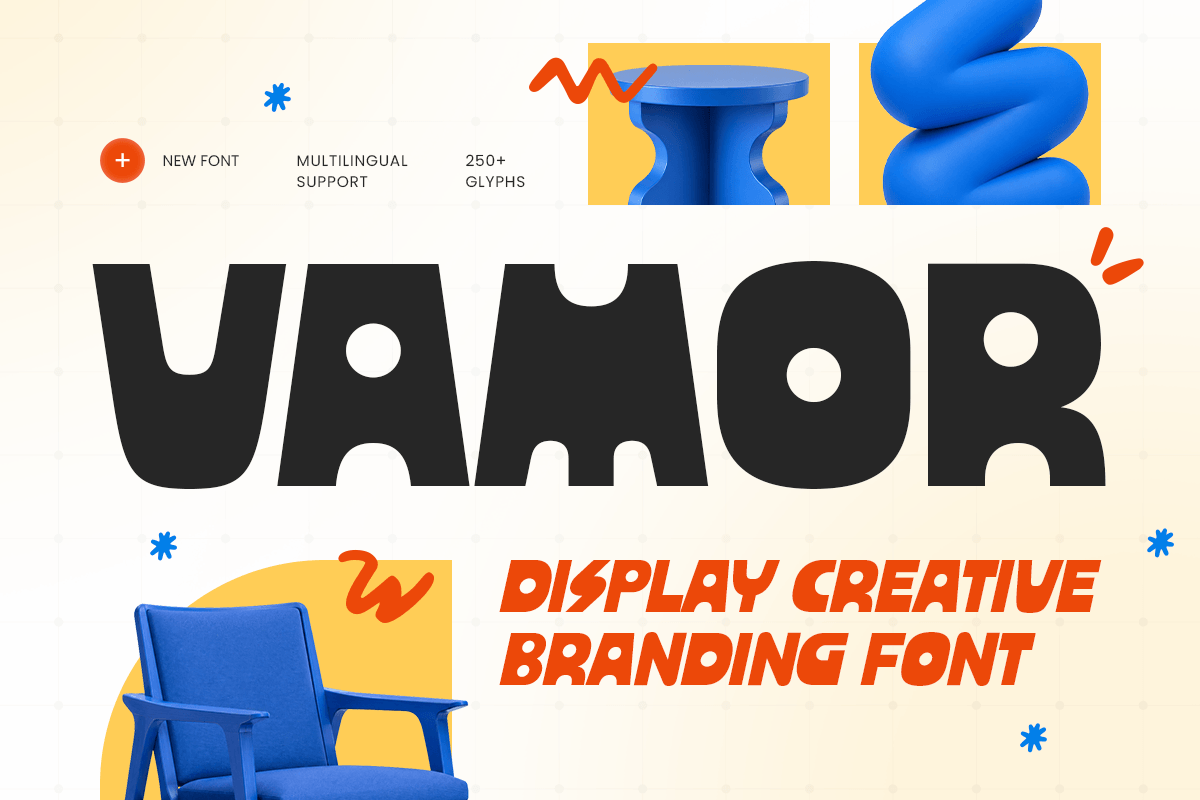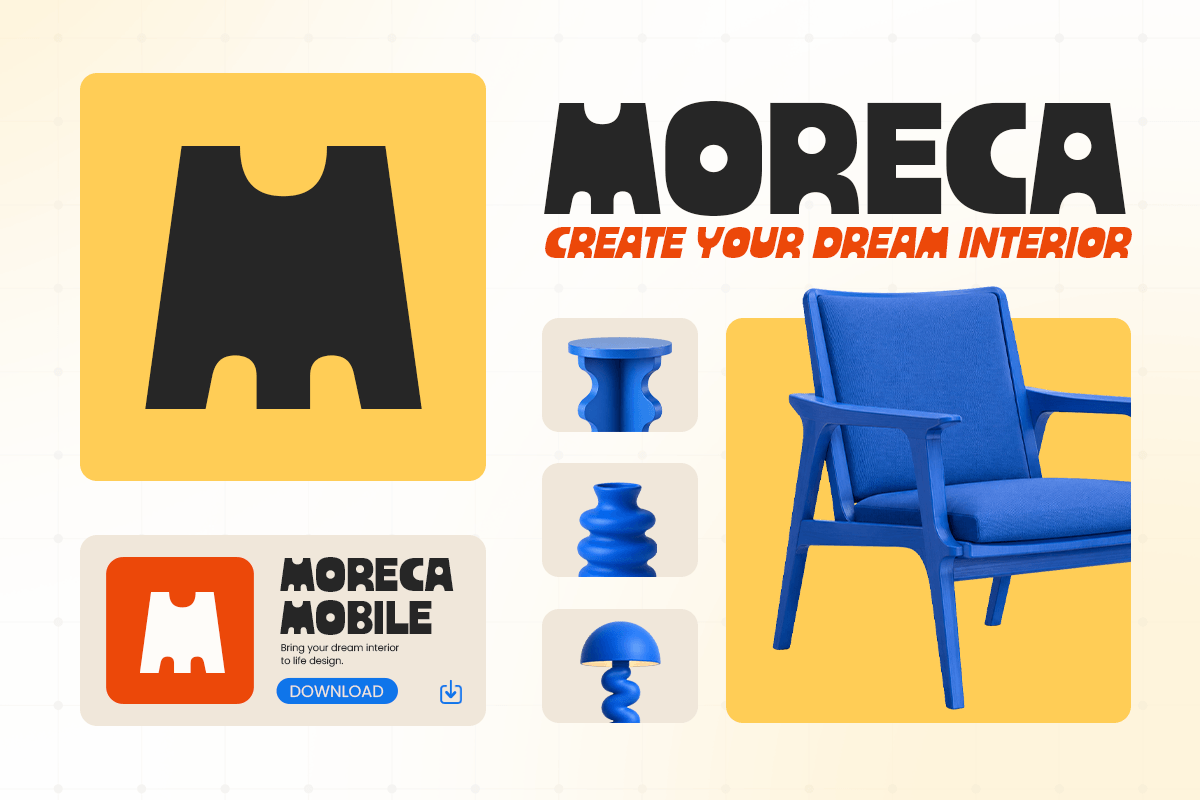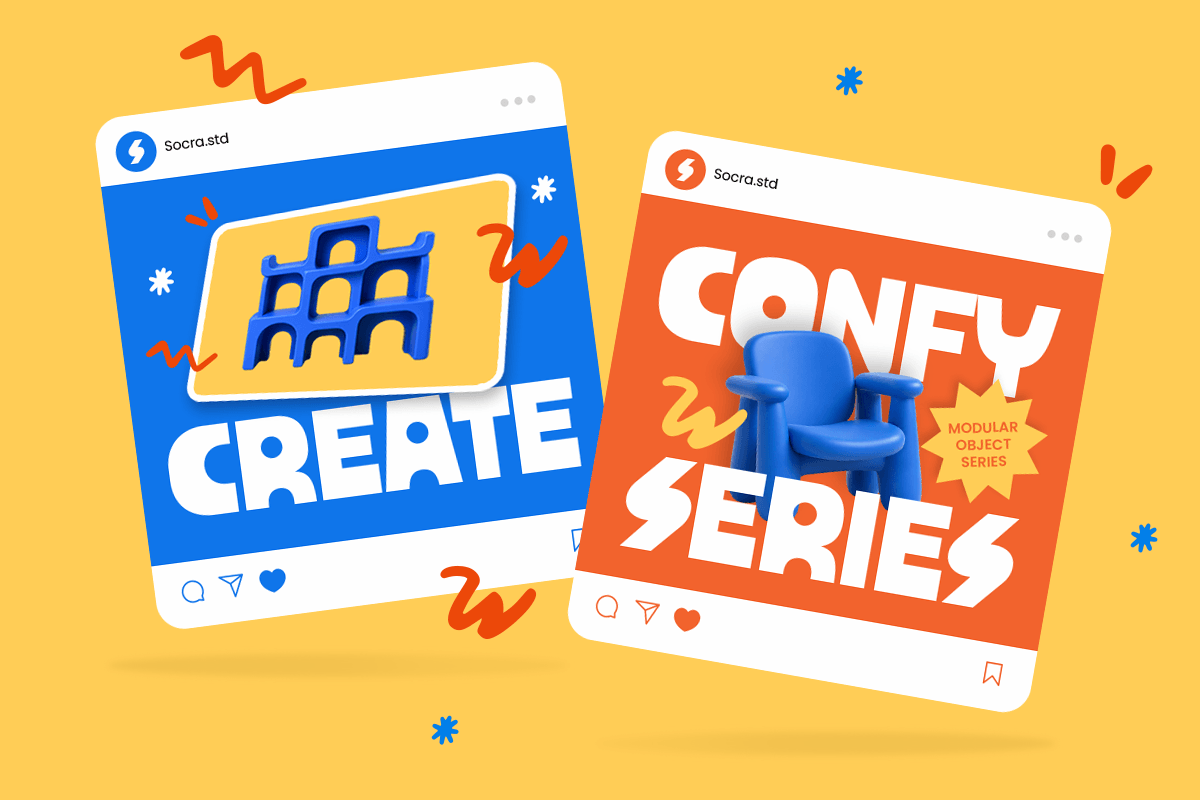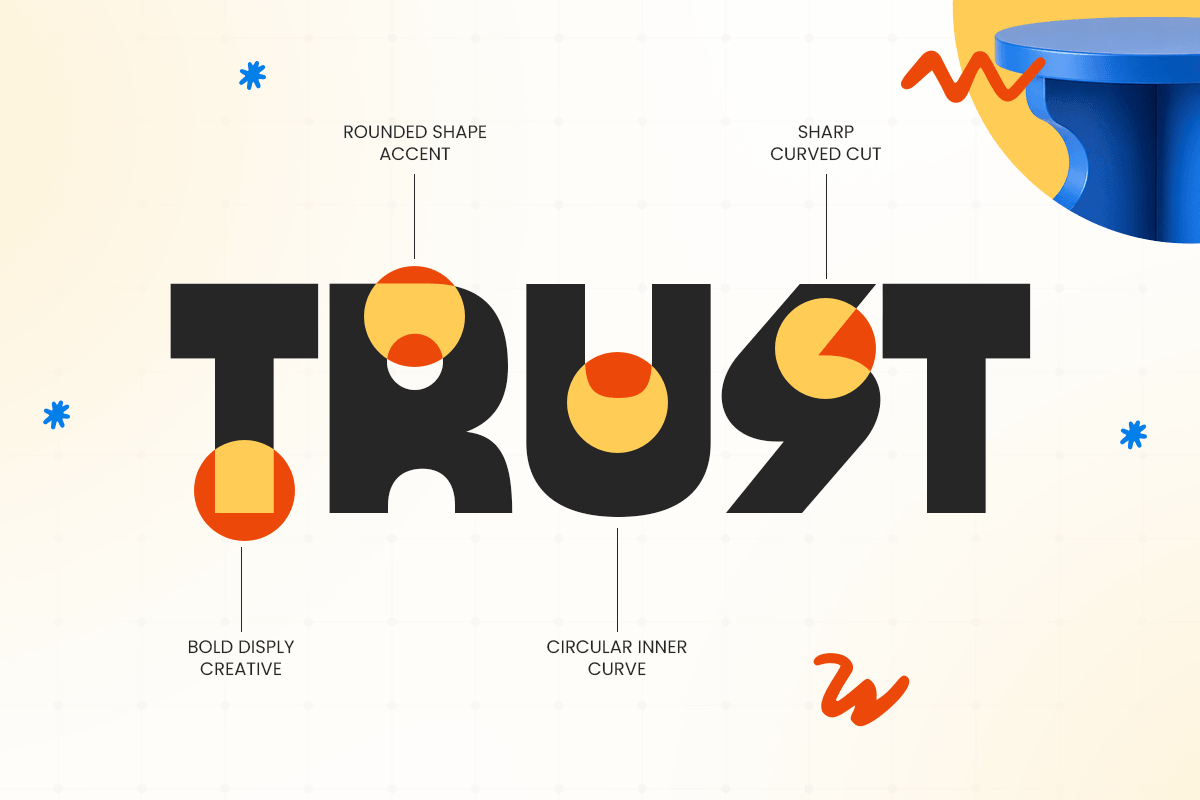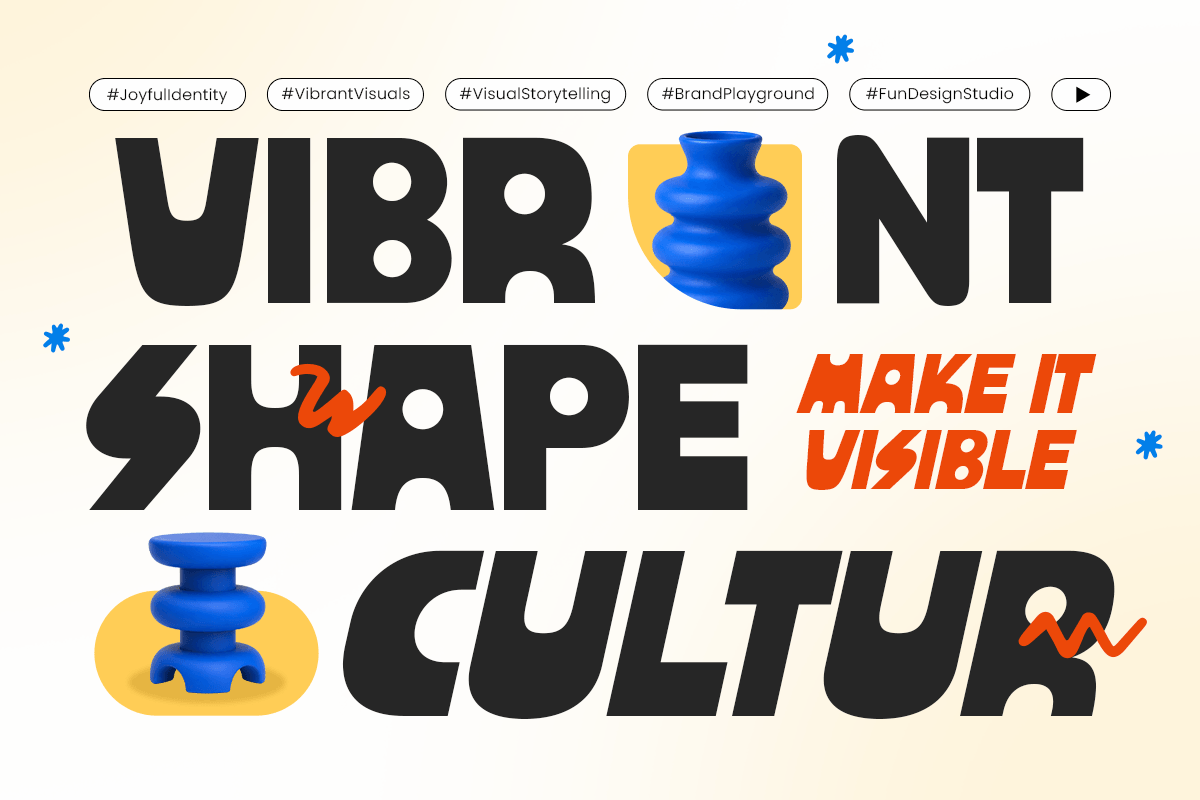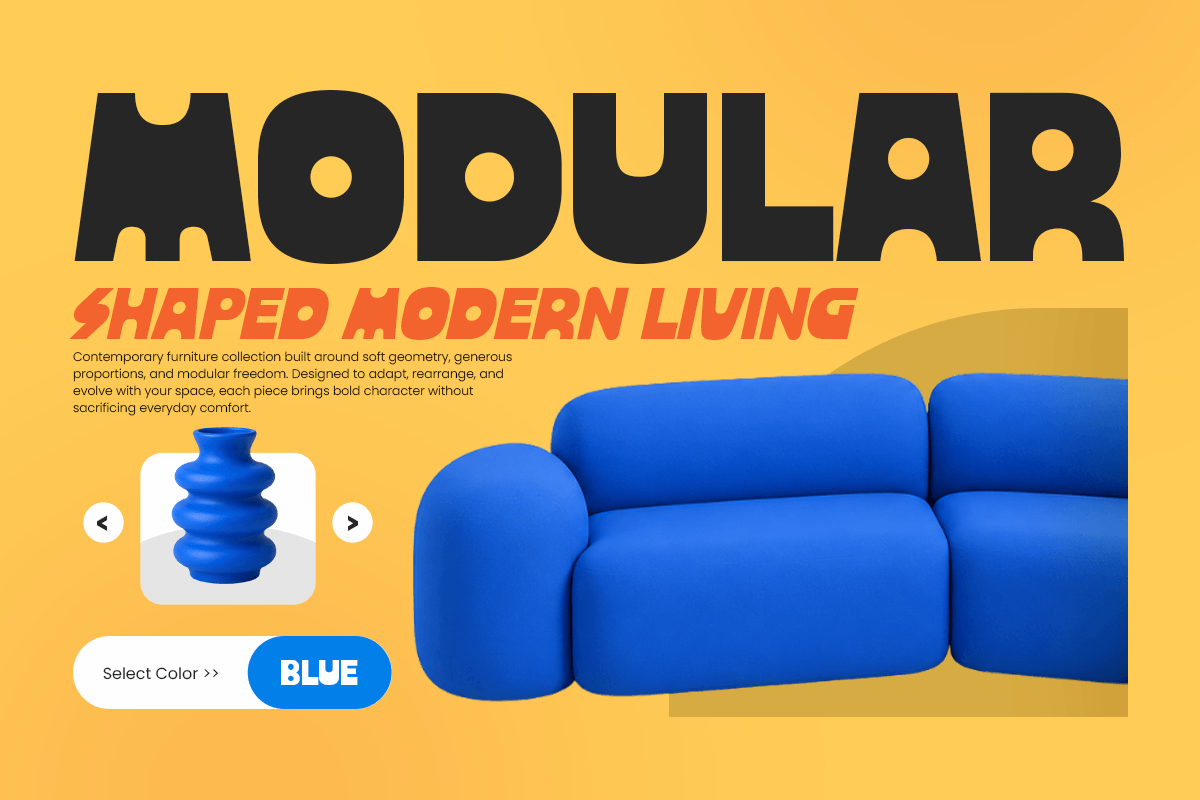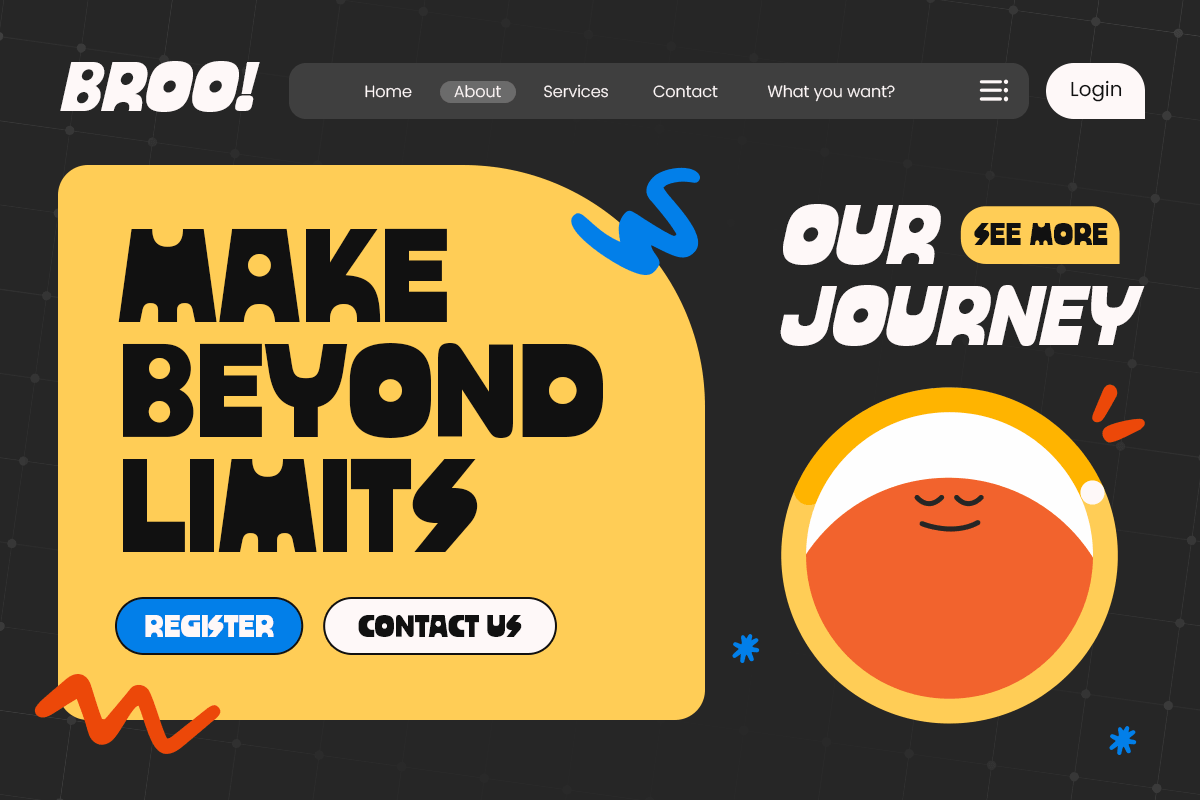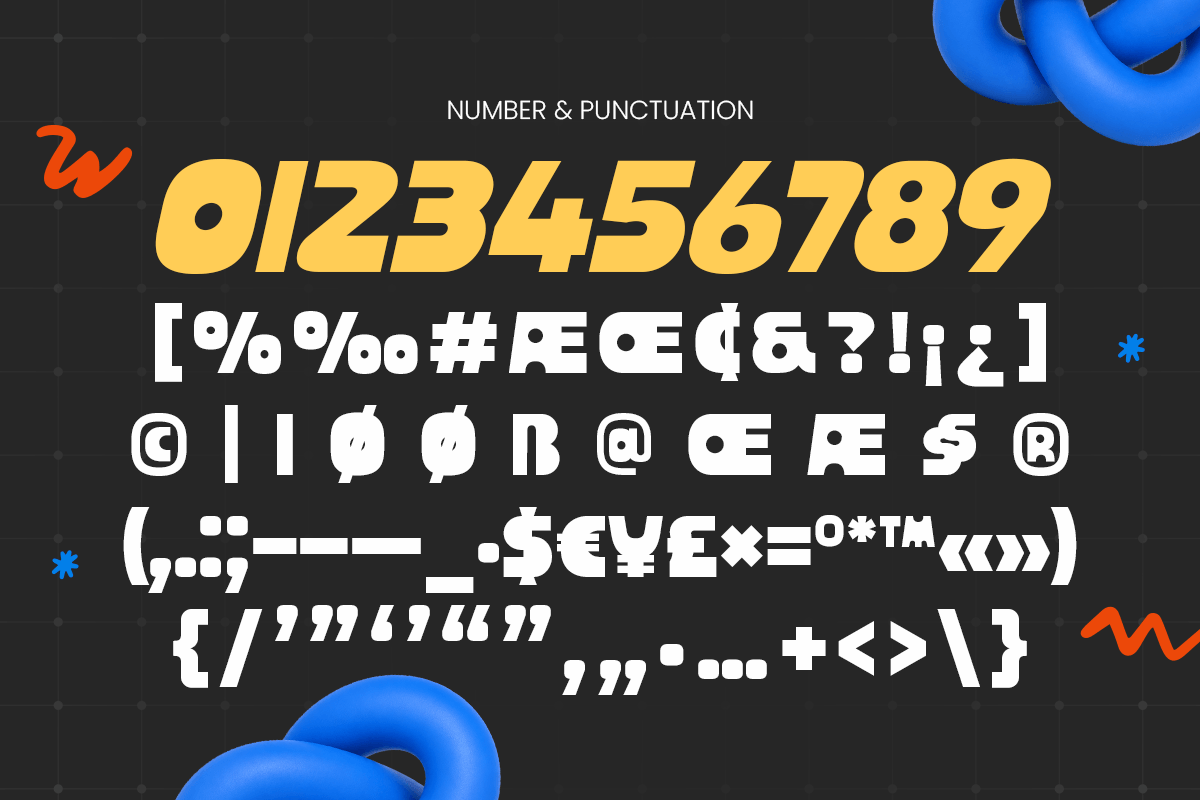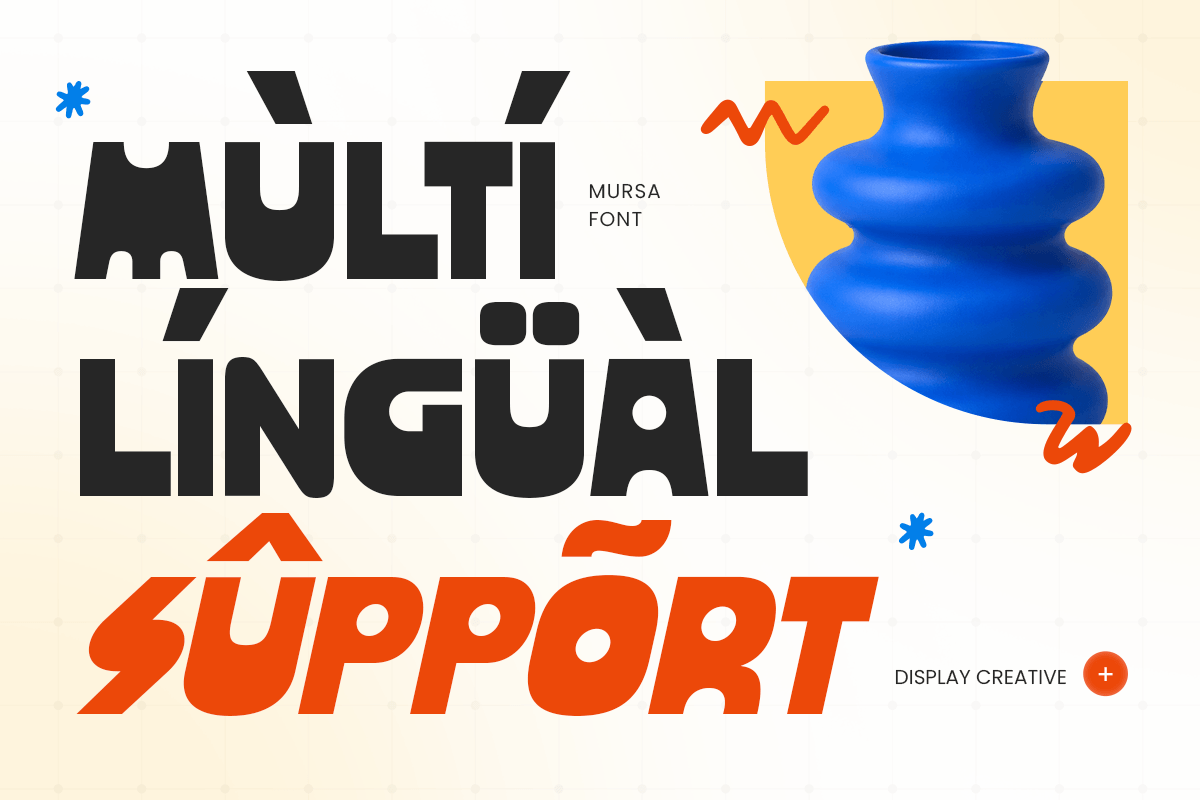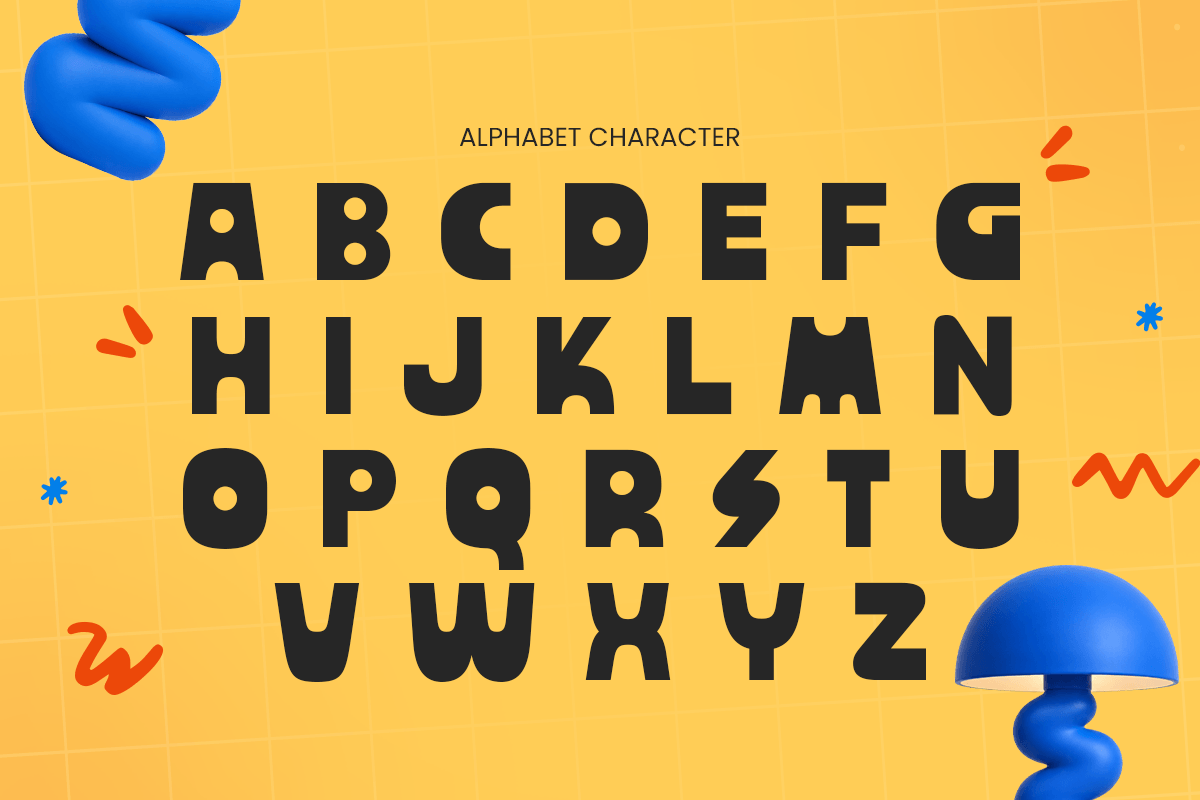
Vamor Display Creative Branding Font
Vamor is a Display Creative Branding Font designed for bold brands, creative identities, and modern visual communication. Inspired by contemporary display typography and expressive branding trends, Vamor combines distinctive letterforms with a strong character to create a memorable and impactful appearance.
With its unique shapes, stylish details, and versatile display style, Vamor is perfect for creating standout logos, brand identities, packaging, posters, social media graphics, and promotional materials. Its creative personality helps designers build visual concepts that feel modern, confident, and original.
Uppercase & lowercase characters
Numbers & symbols included
Unique creative display letterforms
Modern branding-focused design
Professional kerning
With its expressive style and strong visual presence, Vamor is created for designers who want a display font that delivers originality, personality, and premium branding potential across various creative projects.
Logo design
Brand identity systems
Creative branding
Packaging design
Poster layouts
Fashion and lifestyle projects
Advertising materials
Ideal for designers seeking a creative display font with a unique personality, modern appearance, and versatile branding appeal.